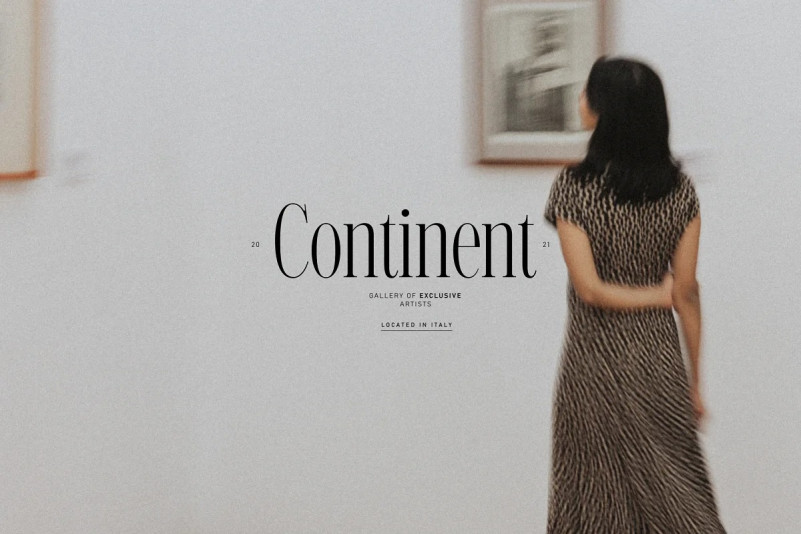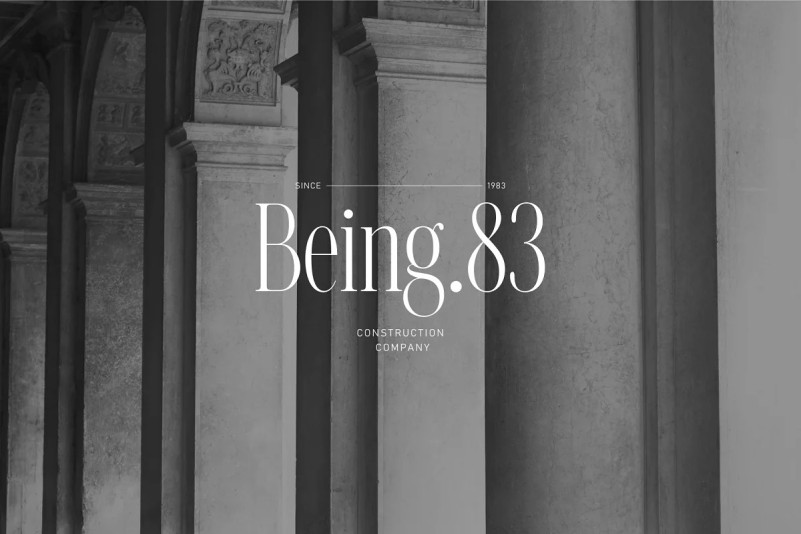
Nt Valentino Font
NT Valentino Serif Font is a graceful and reliable serif font, useful in any situation. Beautiful yet practical, Valentino is designed for excellence in text-heavy settings while doubling as a capable display typeface.
This elegant font needs to be in your collection and is perfect for your next luxury design project. NT Valentino includes both regular & italic versions, while supporting over 200 Latin-based languages.